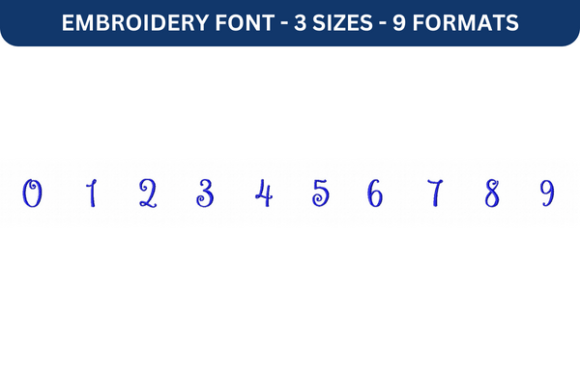
Discover the Elegance of Lettres Douces Font Number 0 to 9
In a world where personalization has become the new standard, the ability to add unique touches to everyday items is more valuable than ever. Enter Lettres Douces Font Number 0 to 9, a high-quality embroidery font that brings both artistry and functionality to fabric-based designs. Whether you're crafting custom gifts, branding products, or enhancing your creative projects, this font offers a versatile solution for anyone looking to infuse personality into their work.
Lettres Douces Font Number 0 to 9 is designed with precision and care, making it ideal for those who appreciate both aesthetics and practicality. From writing names and dates to embedding meaningful quotes, this font allows you to transform plain fabric into something special. Its clean lines and elegant curves make it suitable for a wide range of applications, from personalized apparel to decorative home goods.
The versatility of Lettres Douces Font Number 0 to 9 opens up a wide array of practical applications. For instance, it can be used to create custom name tags for children's clothing, adding a touch of personal flair to everyday wear. Similarly, it can be employed to embellish wedding invitations, gift tags, or even corporate branding materials, offering a stylish and professional finish.
For educators and event planners, this font can help in creating visually appealing signage, certificates, or promotional materials. The ability to write dates, quotes, or motivational messages in a consistent and elegant style adds value to any project, whether it's for a classroom activity or a community event.
Entrepreneurs and freelancers can also benefit from the font’s adaptability. It can be integrated into product packaging, branding assets, or even digital content, helping to maintain a cohesive visual identity across all platforms. In today’s fast-paced business environment, having access to reliable and high-quality design tools like Lettres Douces Font Number 0 to 9 can significantly streamline workflow and improve overall efficiency.
How Lettres Douces Font Number 0 to 9 Fits Into Current Trends
As technology continues to evolve, so too do the ways in which people interact with creative tools. The increasing integration of digital design with physical craftsmanship is a clear example of this trend. Lettres Douces Font Number 0 to 9 exemplifies this convergence by bridging the gap between digital design and traditional embroidery techniques.
Additionally, the growing emphasis on sustainability and ethical production practices has led many consumers to seek out products that are both meaningful and environmentally conscious. Custom embroidery, when done responsibly, can align with these values by allowing for minimal waste and the creation of one-of-a-kind items. Lettres Douces Font Number 0 to 9 supports this approach by enabling designers to create personalized pieces that reflect both artistic intent and environmental awareness.
Whether you're a hobbyist looking to add a personal touch to your projects or a professional seeking to elevate your brand, Lettres Douces Font Number 0 to 9 offers a reliable and elegant solution. By embracing this font, you’re not just choosing a design tool—you’re investing in a versatile resource that supports innovation, quality, and individuality in every stitch.